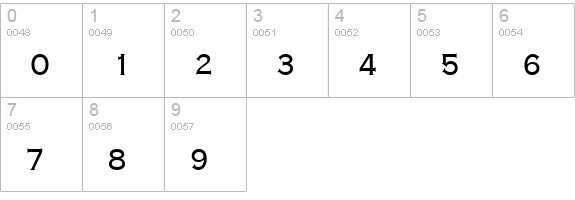
Copperplate Extra Condensed SSi Extra Condensed is a distinctive, condensed-width variant in the Copperplate typeface family \xE2\x80\x94 well suited to design and typography projects.
Copperplate Extra Condensed SSi Extra Condensed is a sleek and modern font that exudes sophistication and elegance. Its condensed design makes it perfect for creating a bold statement in your projects. This font features clean lines and sharp edges, giving it a professional and polished look. Whether you are designing a logo, a poster, or any other creative project, Copperplate Extra Condensed SSi Extra Condensed is sure to make a lasting impression. And the best part? This stunning font is available for free download at FontsMarket.com. So why wait? Elevate your designs with the timeless beauty of Copperplate Extra Condensed SSi Extra Condensed today!